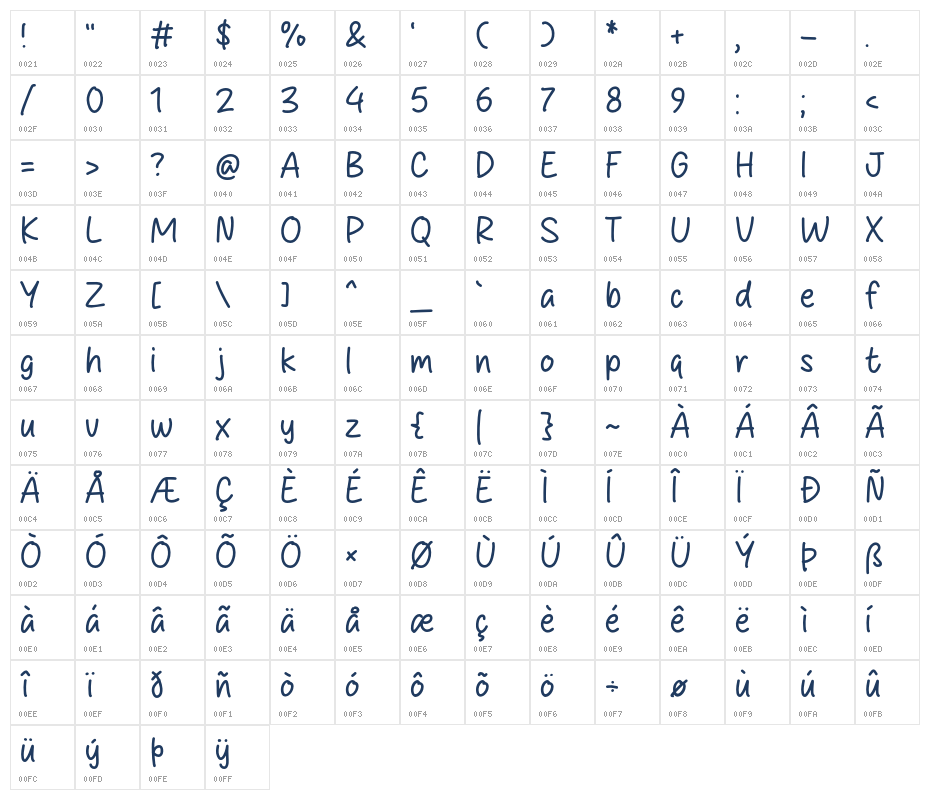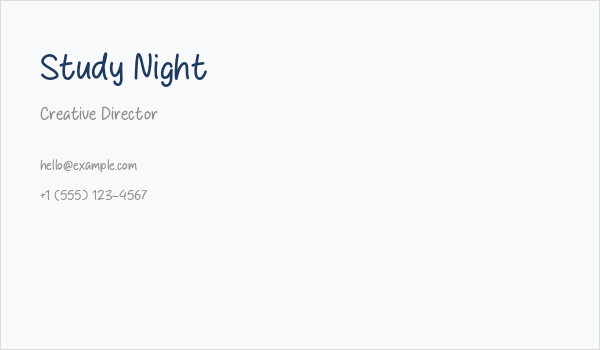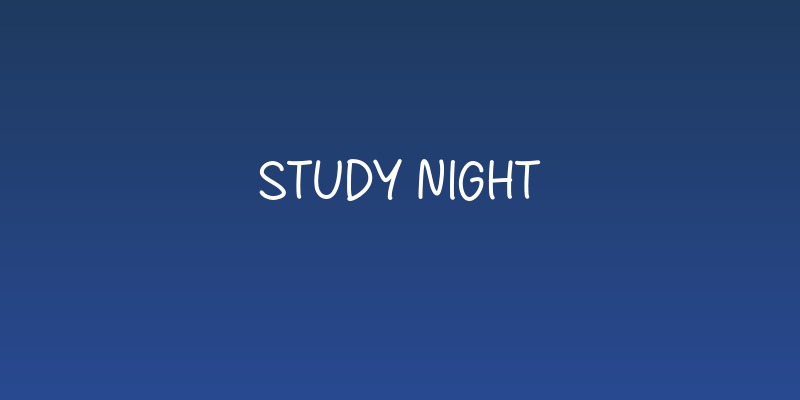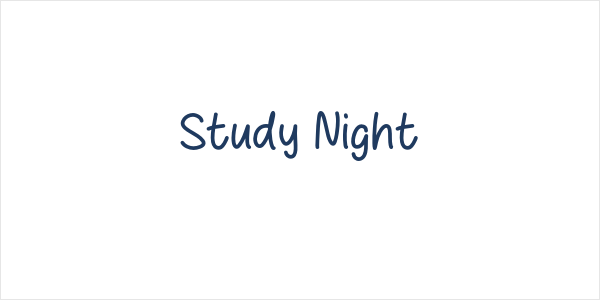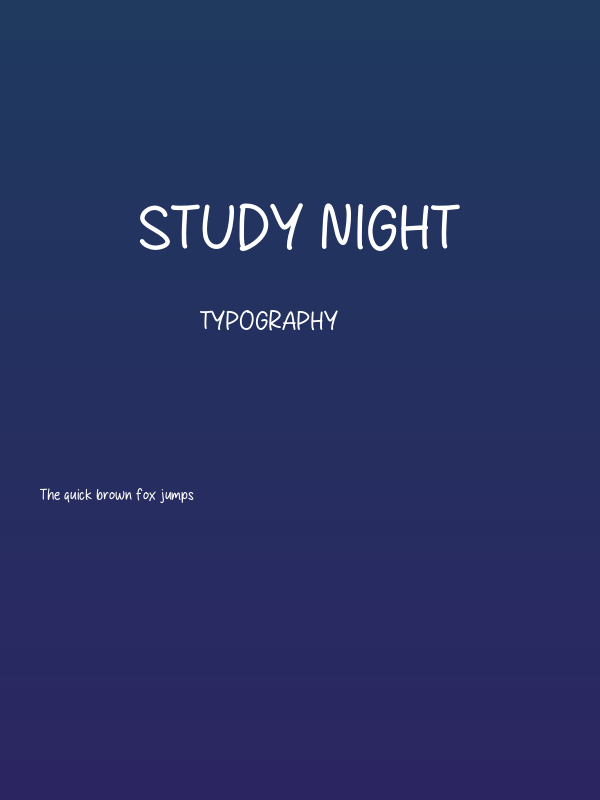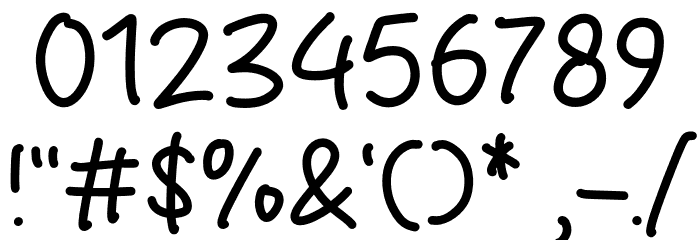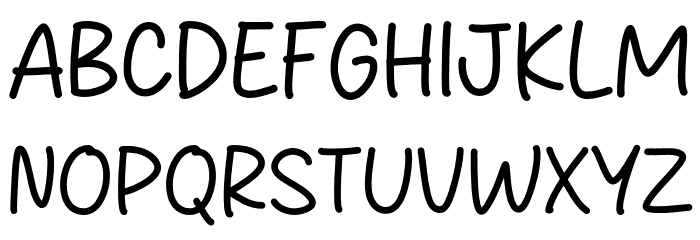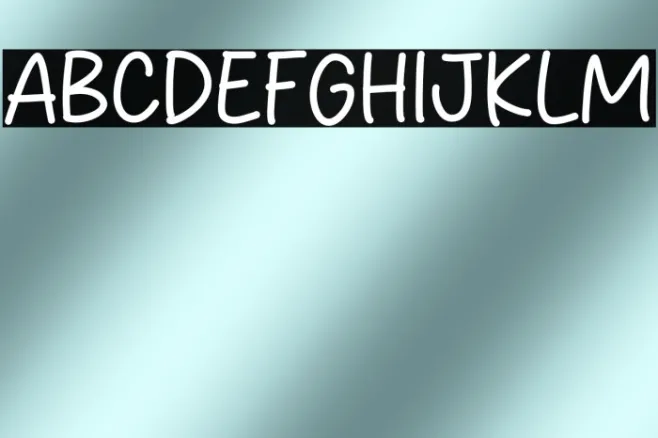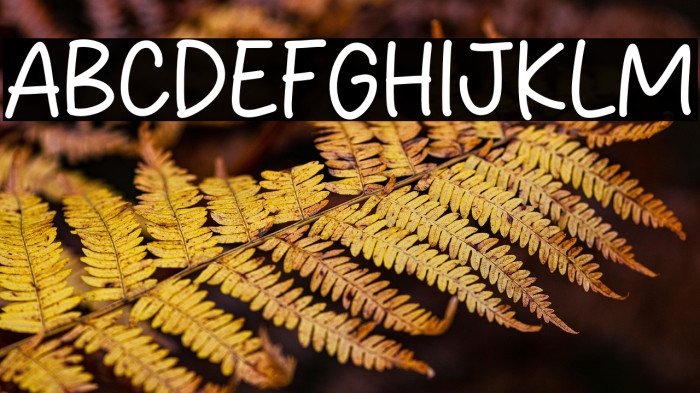
Study Night Font
Study Night Description
A casual, handwritten script font with a playful and friendly appearance, featuring smooth curves and slightly irregular strokes.
| Overall Style | Casual, Friendly, Handwritten |
| Use Case | Headlines, Personal projects, Invitations, Children's books |